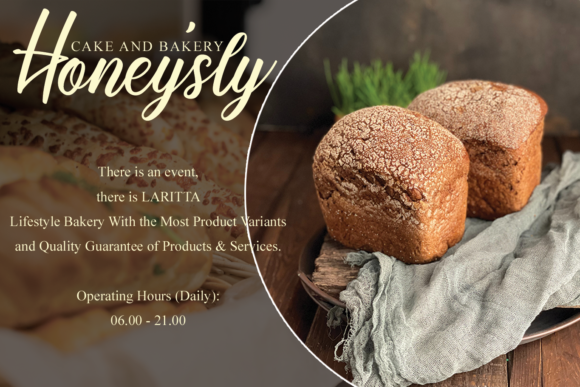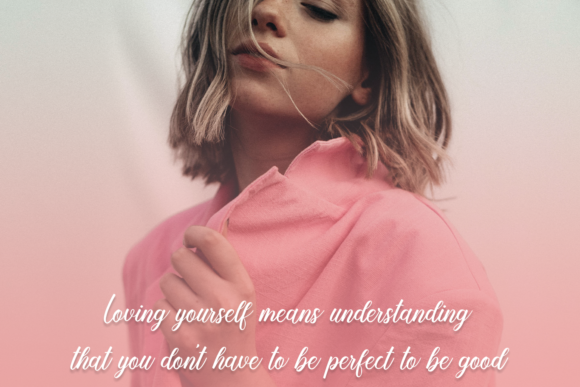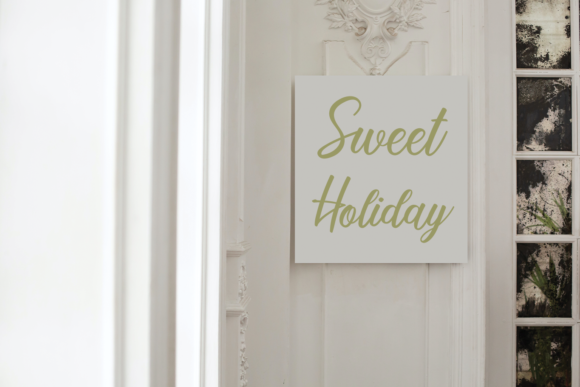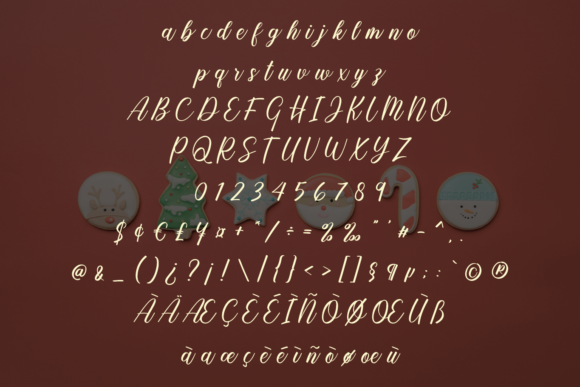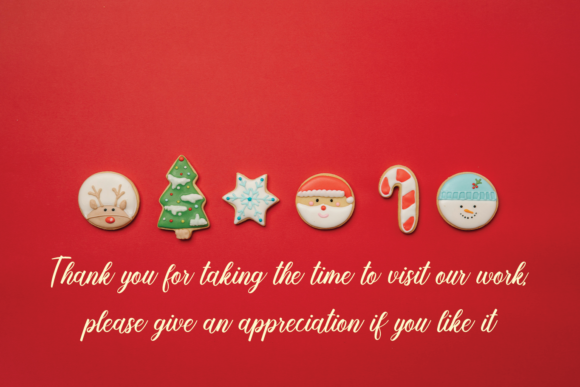
Introducing Christmas Ginger Font: The Ultimate Whimsical Handwritten Font for Your Holiday Designs
Are you looking for a font that captures the essence of the holiday season? Do you want to add a touch of whimsy and playfulness to your designs? Look no further than Christmas Ginger Font! This delightful handwritten font is perfect for designers and crafters who want to create spectacular holiday designs that stand out from the crowd.
What Makes Christmas Ginger Font So Special?
Christmas Ginger Font is a truly unique and versatile font that is sure to capture the hearts of designers and crafters alike. Its distinct and well-rounded letters make it a masterpiece, perfect for creating a wide range of designs, from holiday cards and invitations to social media graphics and blog posts.
One of the things that sets Christmas Ginger Font apart is its whimsical and relaxed feel. The font has a friendly, approachable quality that makes it perfect for designs that need to feel warm and inviting. Whether you’re creating a design for a holiday party, a Christmas market, or simply a cozy winter’s night in, Christmas Ginger Font is the perfect choice.
The Benefits of Using Christmas Ginger Font
So why should you choose Christmas Ginger Font for your holiday designs? Here are just a few of the benefits of using this amazing font:
- Versatility: Christmas Ginger Font is incredibly versatile, making it perfect for a wide range of designs, from formal invitations to social media graphics.
- Whimsy: The font’s whimsical feel makes it perfect for designs that need to feel playful and fun.
- Readability: Despite its playful feel, Christmas Ginger Font is incredibly easy to read, making it perfect for designs that need to communicate a message.
- Uniqueness: Christmas Ginger Font is a truly unique font that will help your designs stand out from the crowd.
How to Use Christmas Ginger Font in Your Designs
Using Christmas Ginger Font in your designs is easy! Here are a few tips to get you started:
- Pair it with bold colors: Christmas Ginger Font looks amazing paired with bold, bright colors that match the festive feel of the holiday season.
- Add some texture: Adding texture to your design can help bring Christmas Ginger Font to life. Try adding some subtle patterns or textures to give your design some depth.
- Experiment with sizes: Christmas Ginger Font looks amazing in a range of sizes, from small and delicate to large and bold. Experiment with different sizes to find the one that works best for your design.
Christmas Ginger Font is perfect for designers and crafters who want to create spectacular holiday designs. Whether you’re creating designs for clients or for your own personal projects, this font is sure to inspire you.
For designers, Christmas Ginger Font is a great addition to your font library. Its versatility and whimsy make it perfect for a wide range of design projects, from holiday cards and invitations to social media graphics and blog posts.
For crafters, Christmas Ginger Font is a great way to add a personal touch to your holiday projects. Use it to create handmade cards, gift tags, and other holiday crafts that are sure to impress.
| Font Name | Christmas Ginger Font |
| Author | fana merah jambu |
Christmas Ginger Font is a truly unique and versatile font that is perfect for designers and crafters who want to create spectacular holiday designs. Its whimsical and relaxed feel makes it perfect for a wide range of designs, from formal invitations to social media graphics.